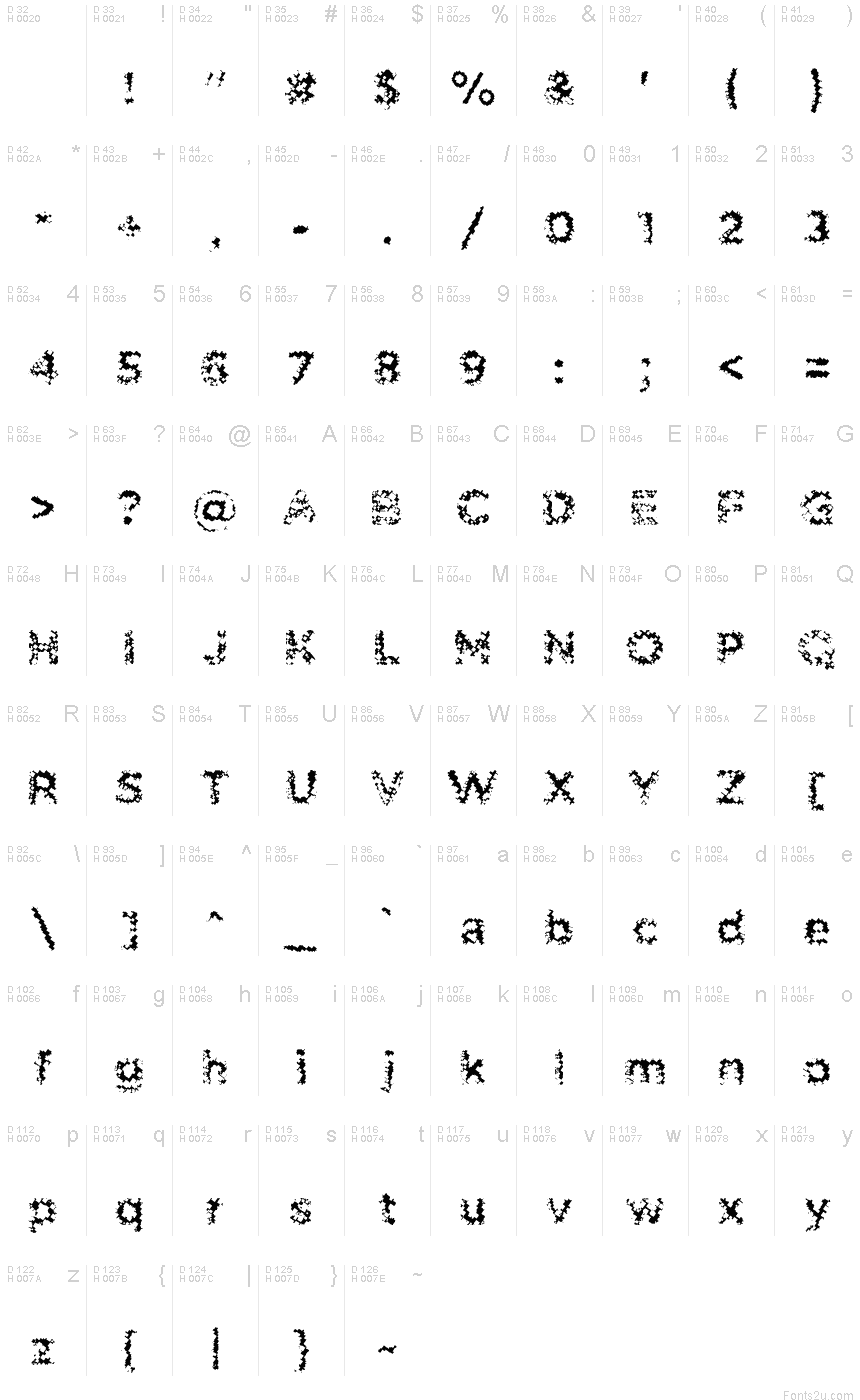
Pabellona Tríplex by deFharo is a free distorted display font with a fractured, aggressively irregular silhouette. Thick letter shapes break into scattered slivers and checkerboard gaps, as if the forms have been torn and misregistered. The damage changes from character to character, yet the underlying capitals remain recognizable.
Concert posters gain a raw photocopied edge, and game graphics pick up the same broken-signal tension. It also suits album covers and streetwear graphics. Music labels and streetwear brands can turn its broken letter shapes into a jagged emblem.
Pabellona (C) Tríplex is the third combinable font in the Pabellona series. It produces polychromatic text lettering.
Pabellona (C) Tríplex font presentation and specimen